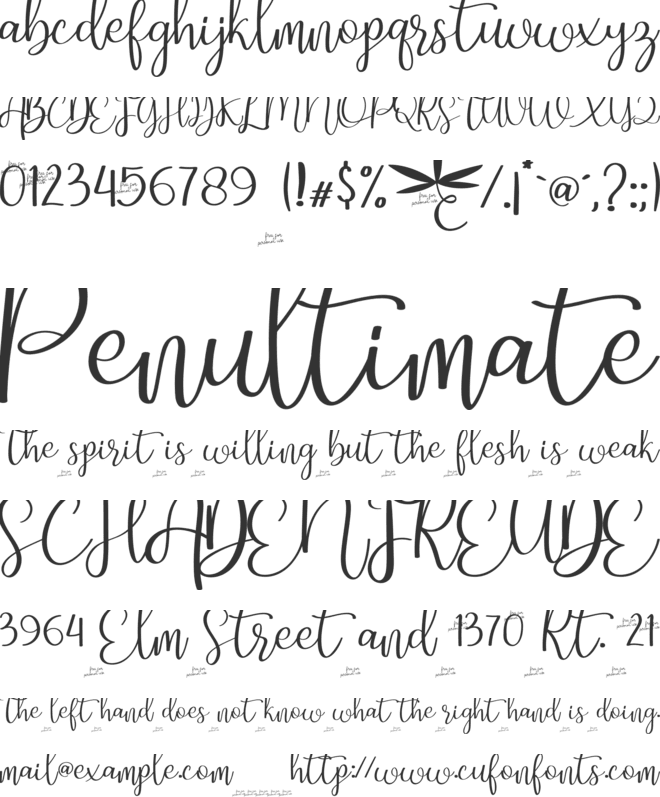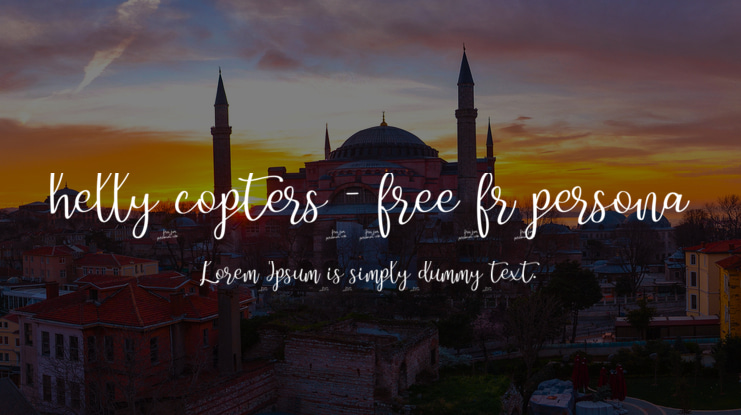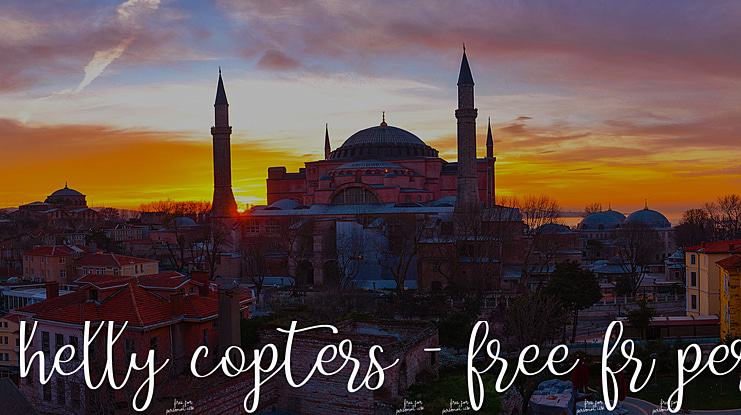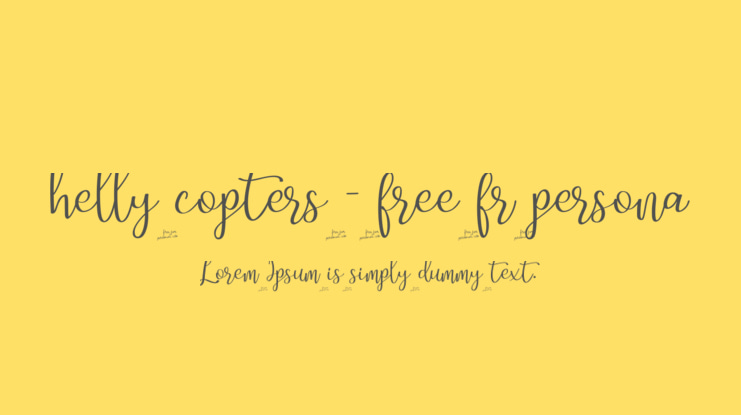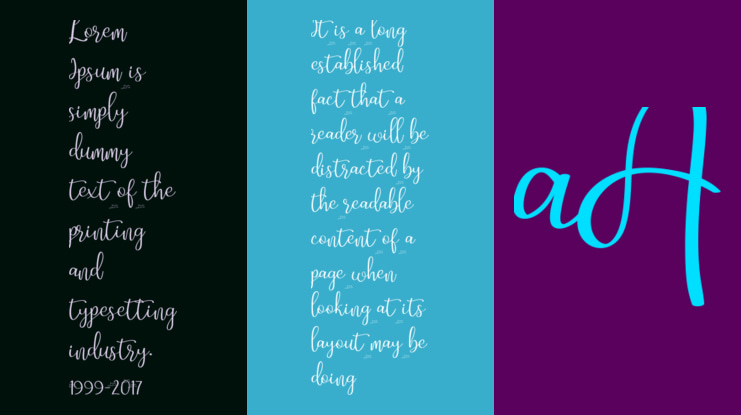
helly copters - free fr persona Font
Helly Copters Calligraphy Font is an interesting calligraphy typeface. With alternates that are unique and beautiful. Available in 6 styles, choose which one you like. It is suitable for the design of wedding invitations, romantic writing, photography, product logos and more.